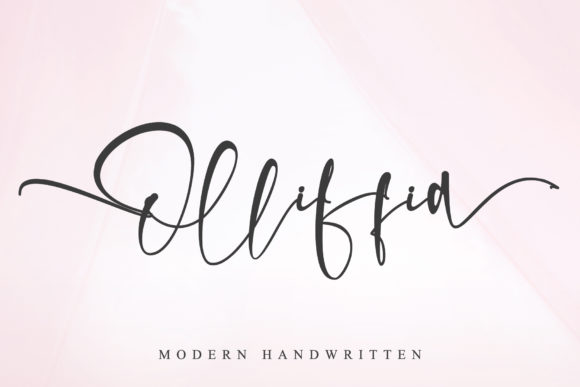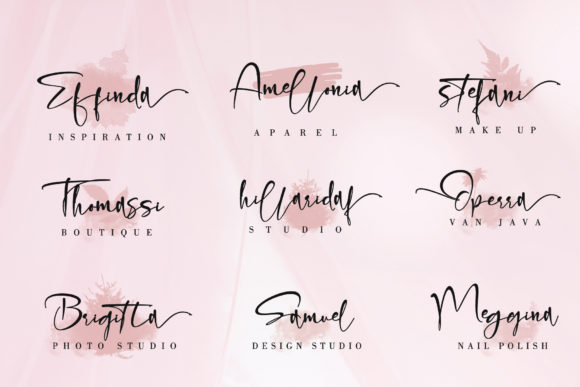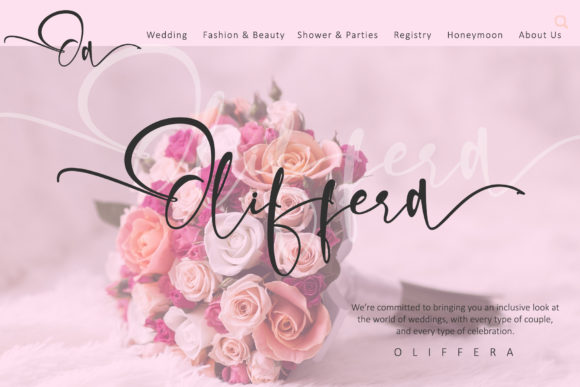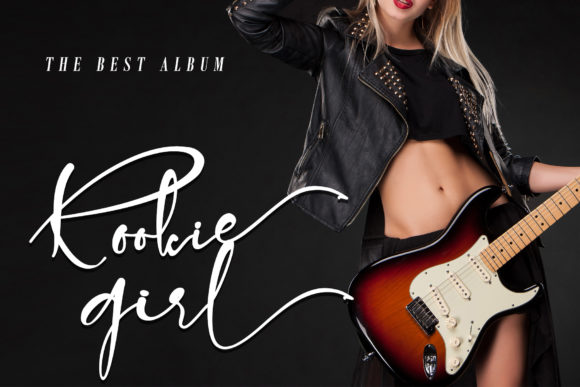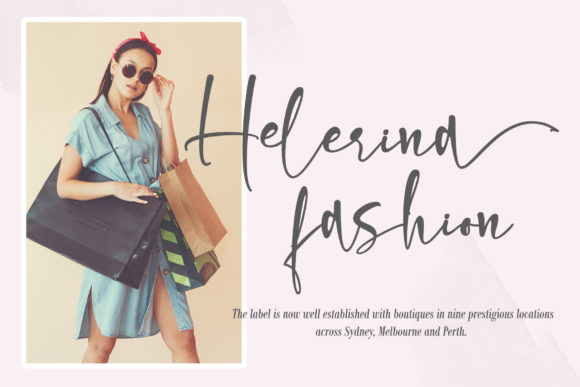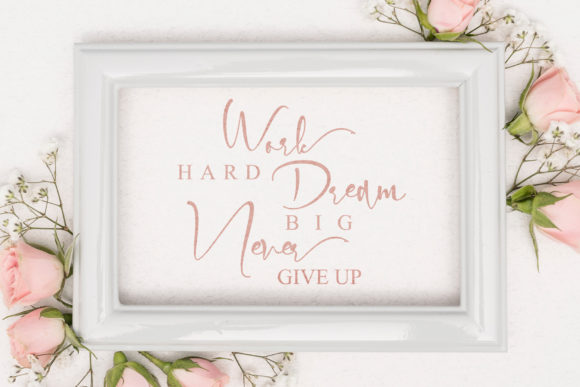
Olliffia Font
About Olliffia Font
Olliffia is an incredibly modern and sweet handwritten font that will turn any design idea into a true standout! This font is PUA encoded which means you can access all of the cute glyphs and swashes with ease! It also features a wealth of special features including alternate glyphs and ligatures.